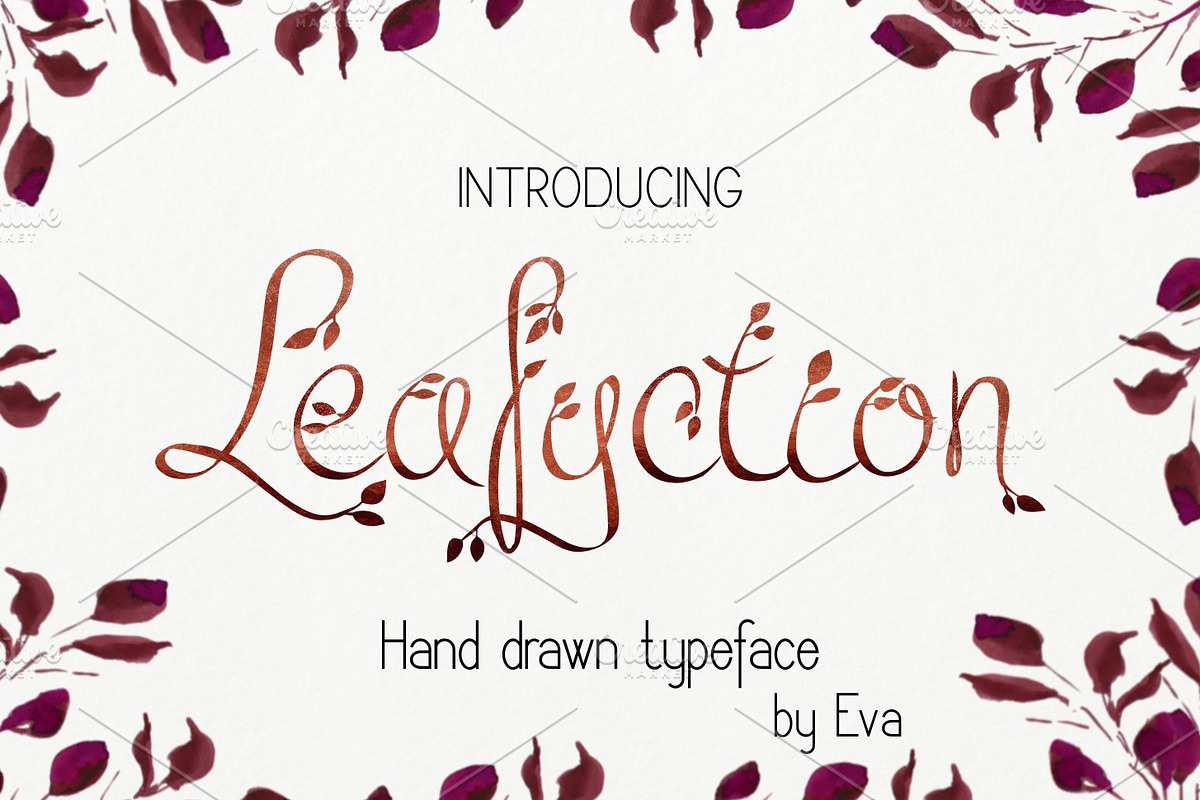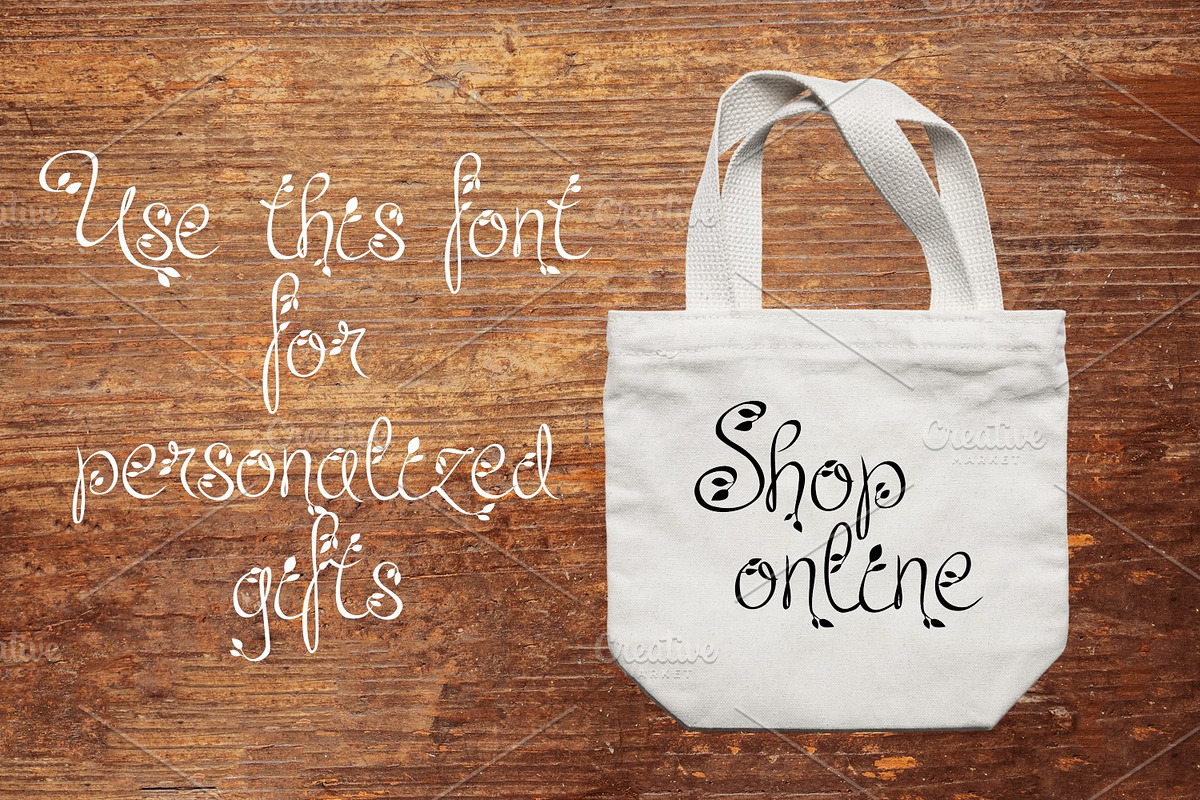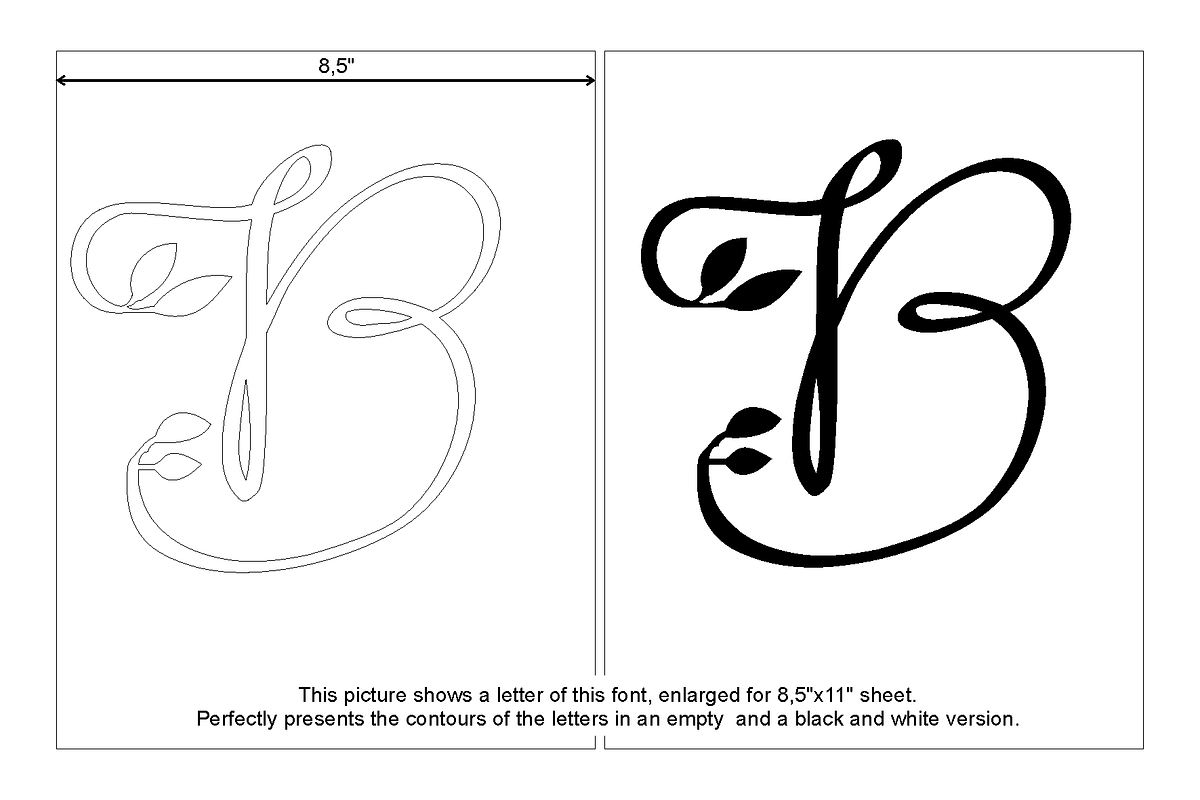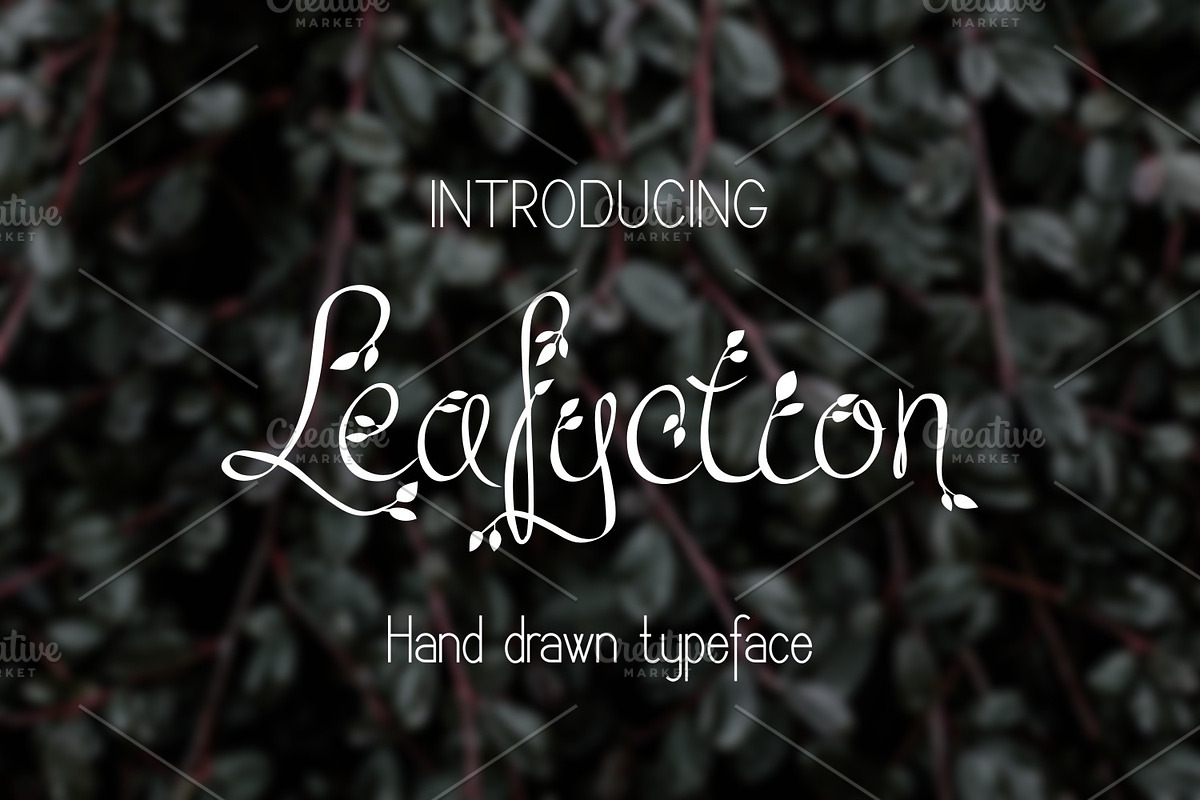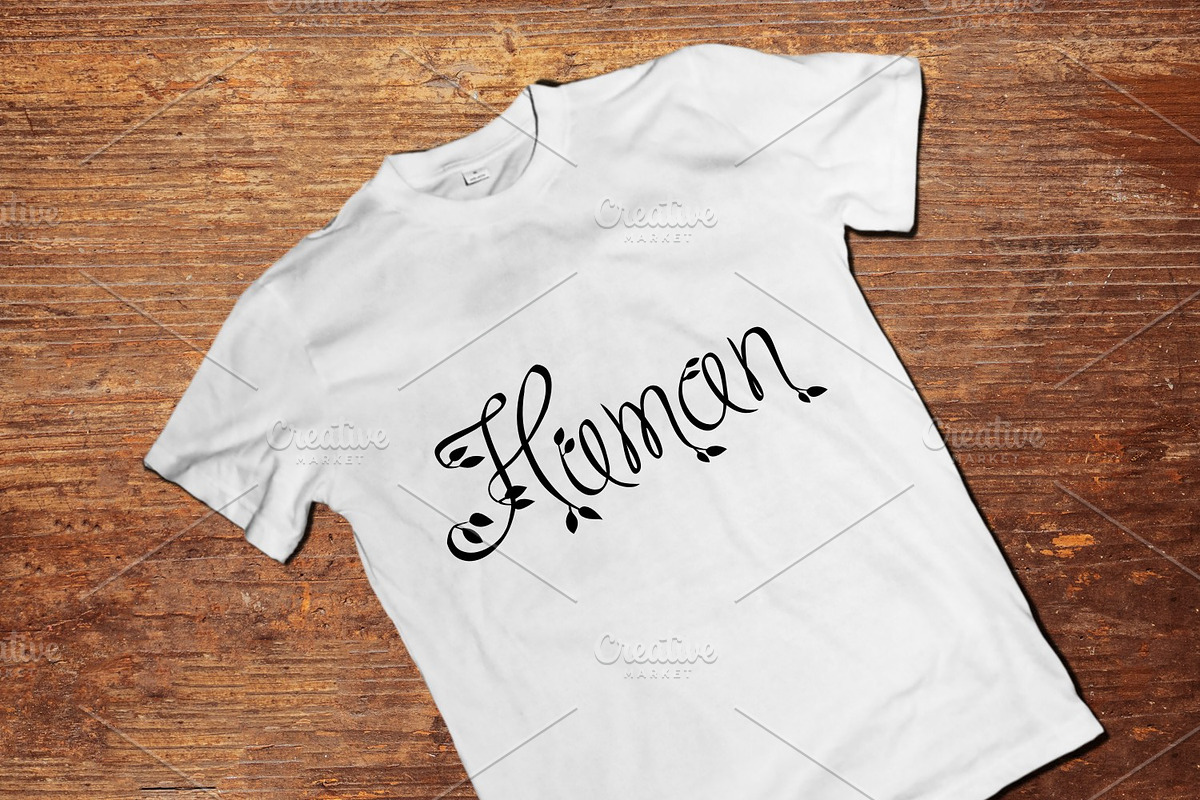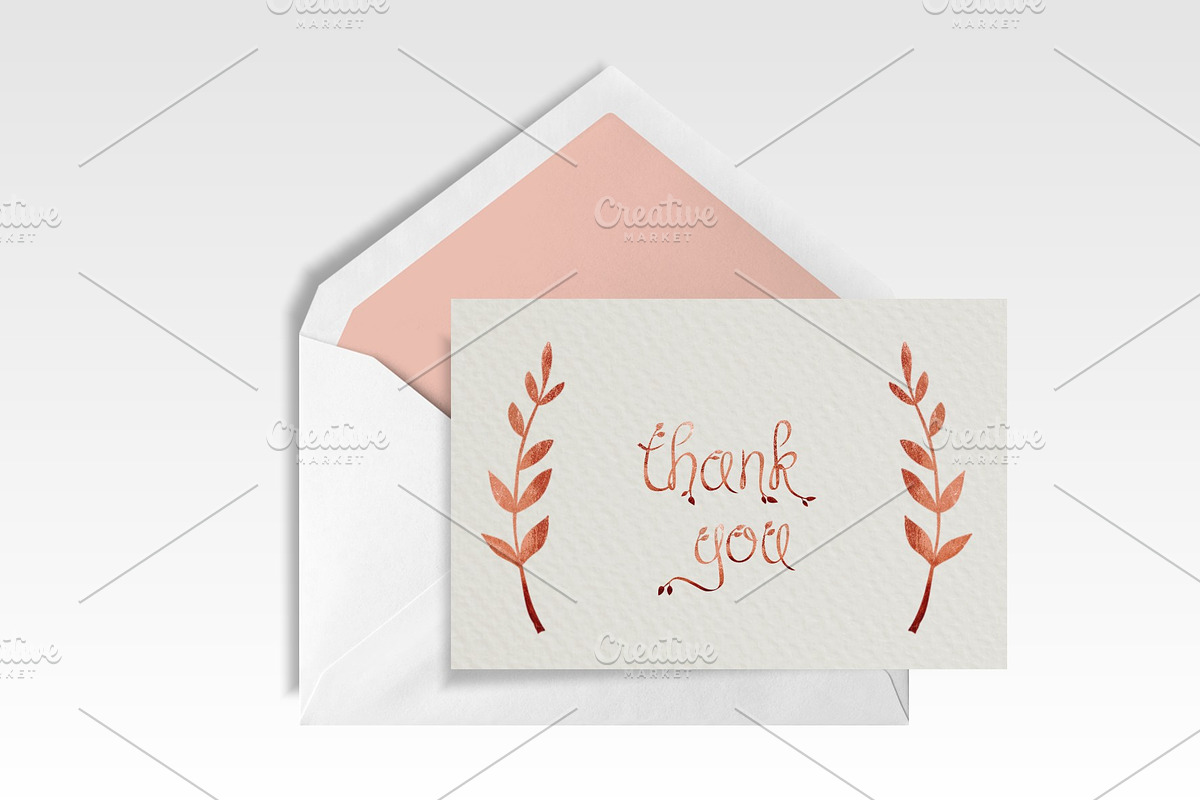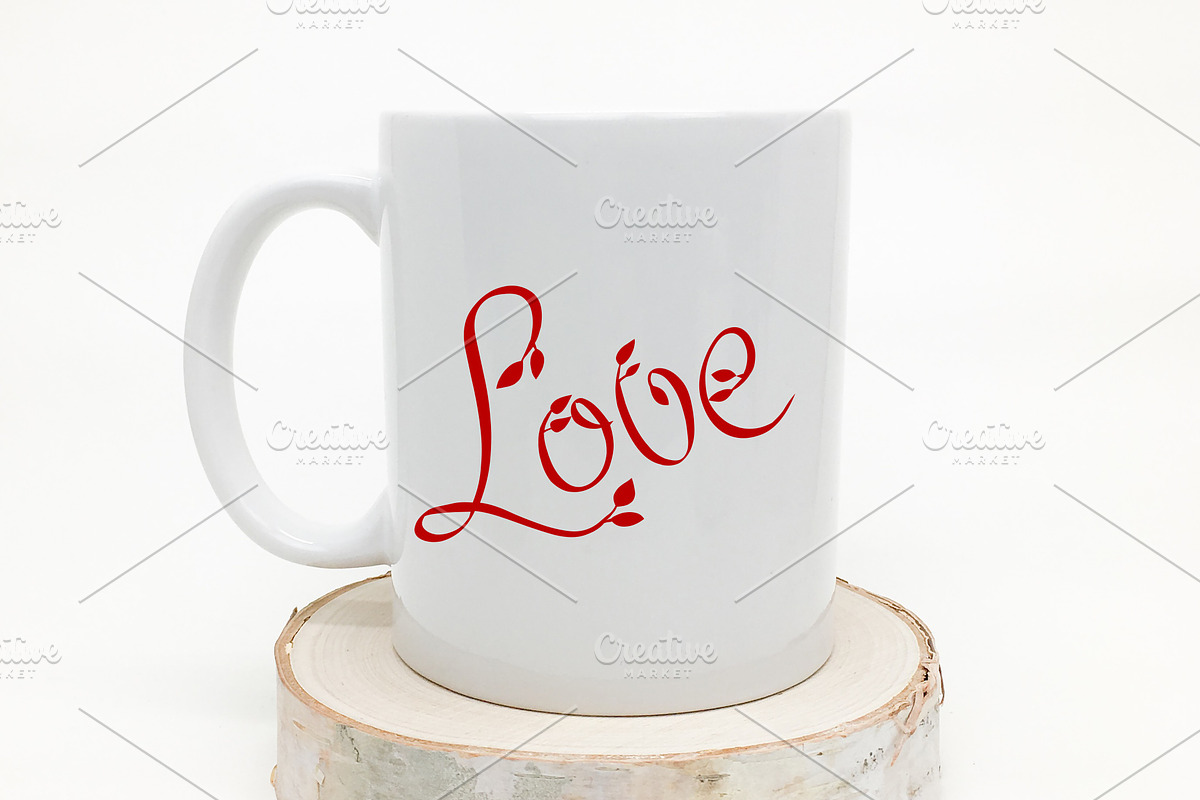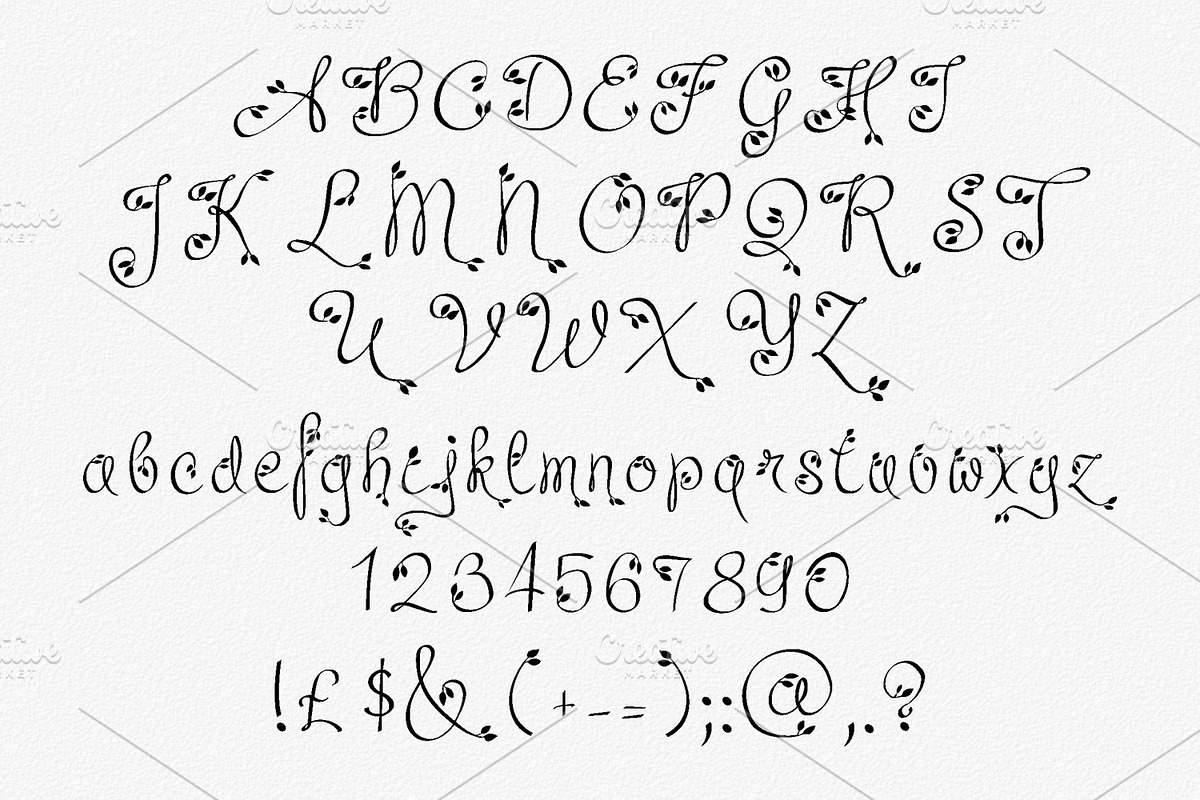
Leafyction
Introducing Leafyction hand drawn typeface.
Leafyction is perfect for gift personalization, product packaging, branding projects, homeware designs and more! Included 2 Font Files (TTF and OTF)
Leafyction by Digital Typeface Studio fits naturally into Branding, posters, packaging, typography.